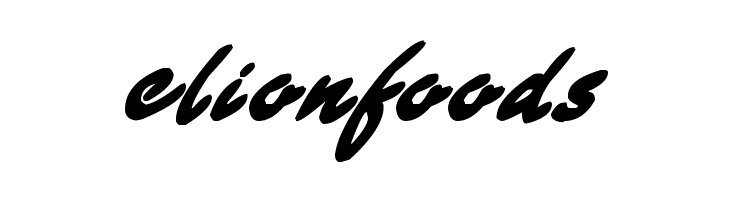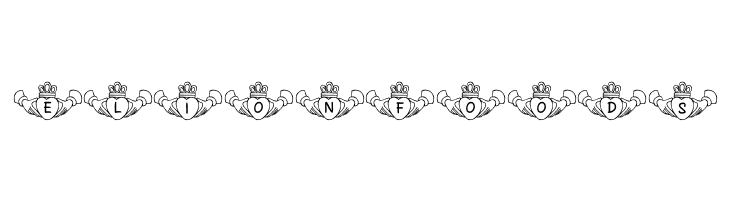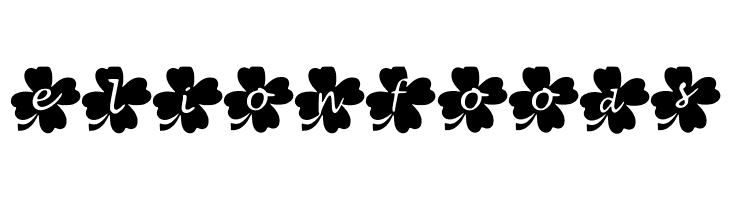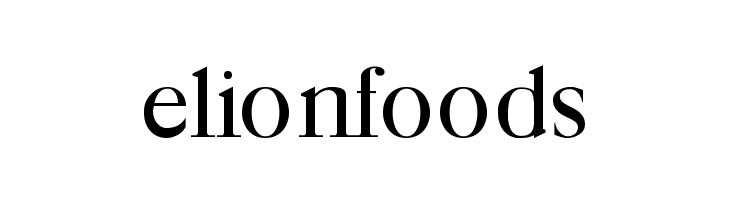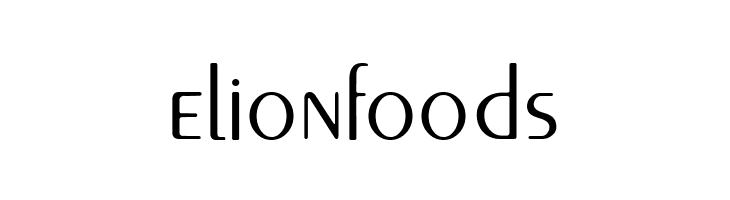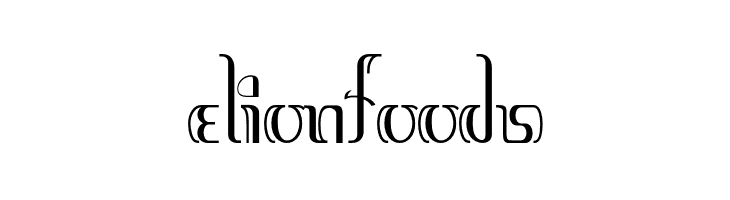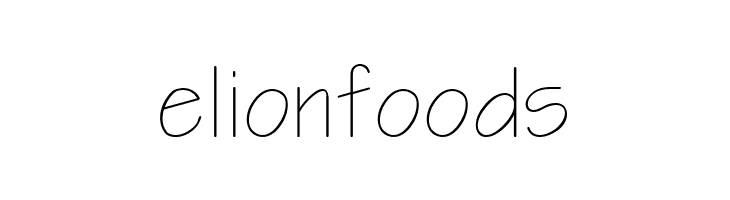
A bold, smooth script font with flowing curves and strong strokes.
A cross-stitch styled font with an embroidered, handcrafted appearance.
A decorative font featuring letters within a Claddagh symbol design.
A whimsical font with script letters inside four-leaf clover silhouettes.
A super thin, elegant handwriting-style font with a modern touch.
A bold, classic serif font with pronounced serifs and slight stroke contrast.
A modern, geometric font with small capitals and a minimalist aesthetic.
An artistic and ornamental font with elegant curves and a sophisticated style.
A clean, precise font with thin lines, ideal for modern and technical designs.
An artistic, calligraphic font with dynamic strokes and elegant style.